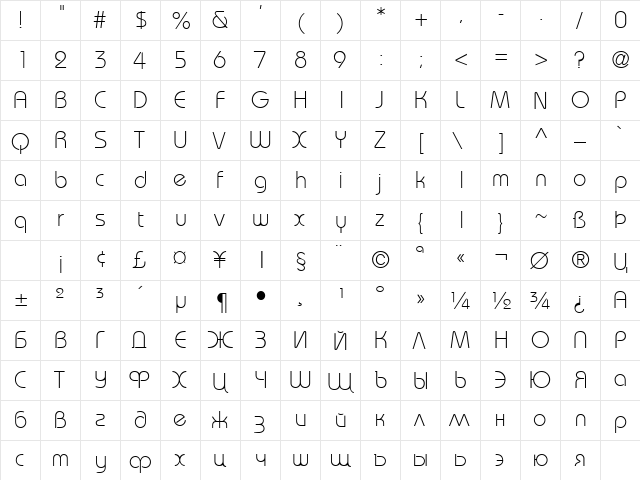
Bahamas Light Regular
Design Context for Bahamas Light Typeface
Bahamas Light takes a measured approach to typography — its balanced proportions and neutral character make it a reliable workhorse for both digital and print work. The delicate stroke weight brings airiness and refinement to layouts.